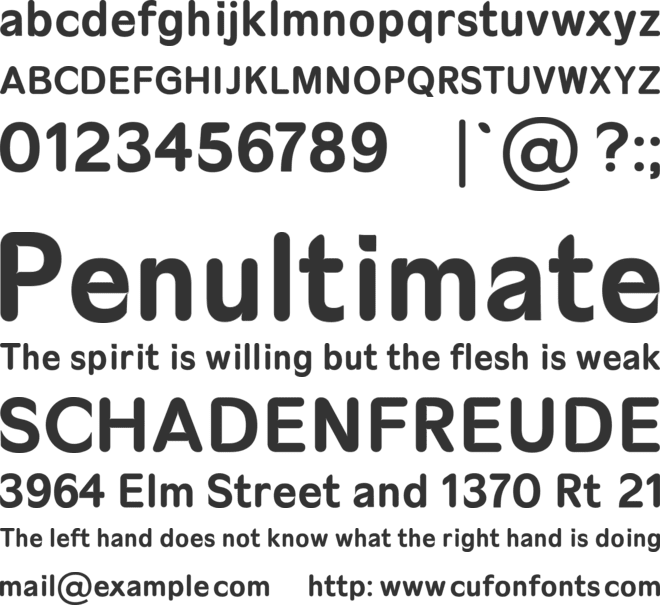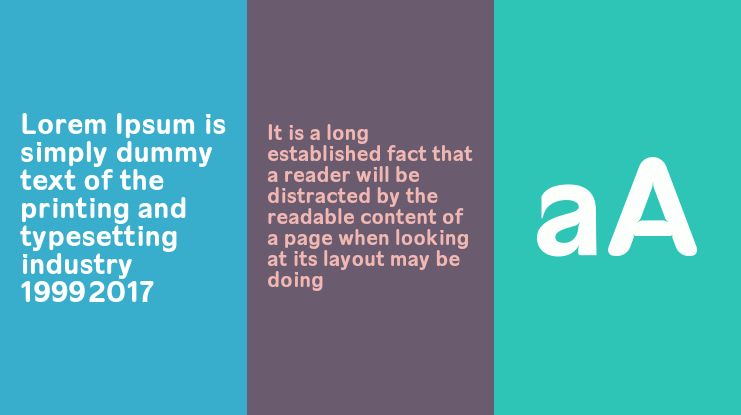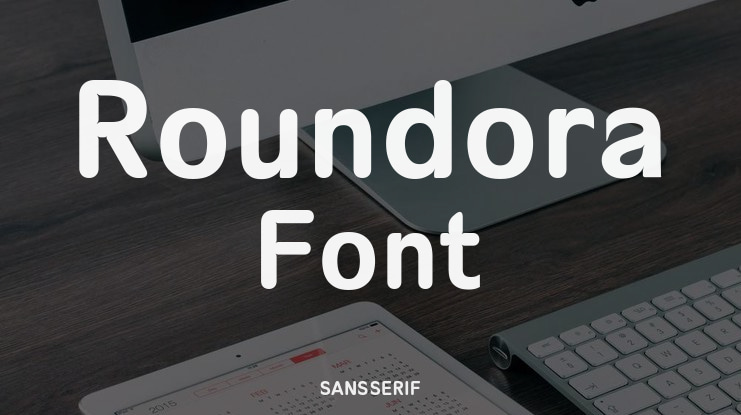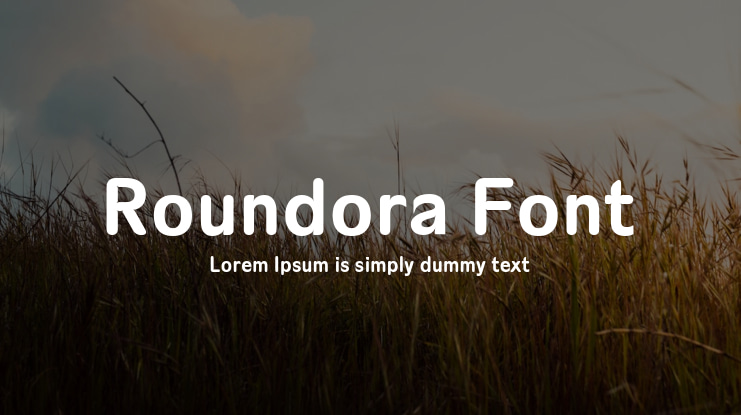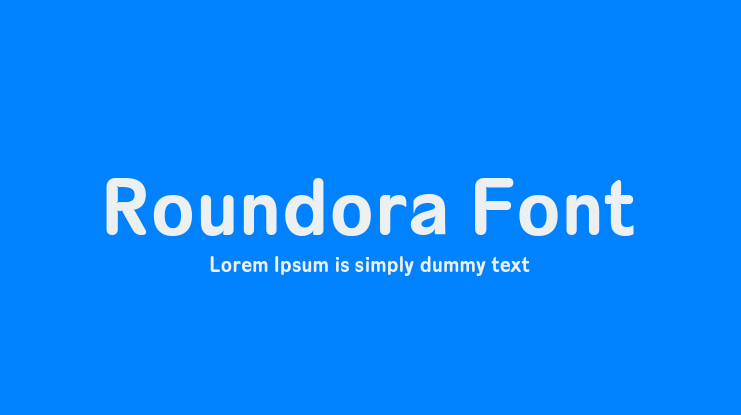
Roundora is a sleek and modern font with a smooth look. It’s perfect for logos, flyers, and online designs. This font comes in three styles: Regular, Outline, and 3D Shadow, making it easy to customize your projects.